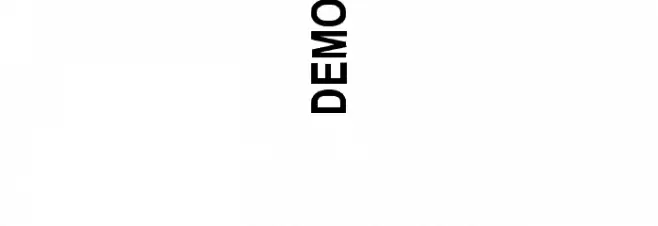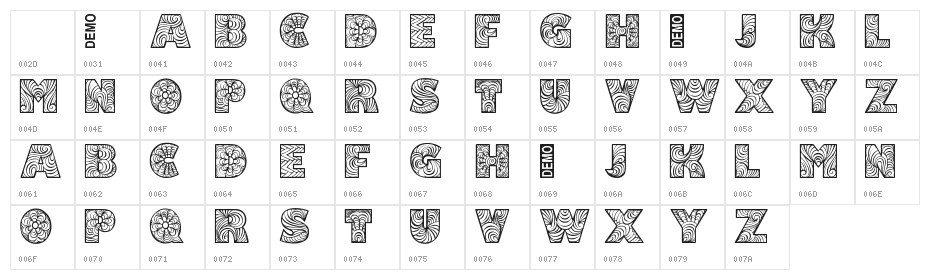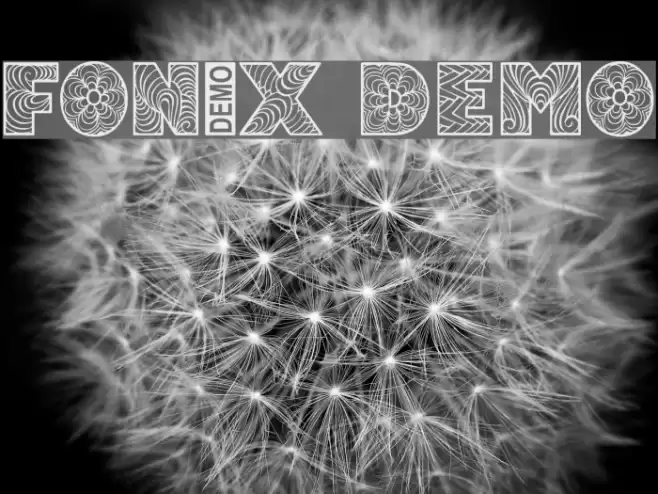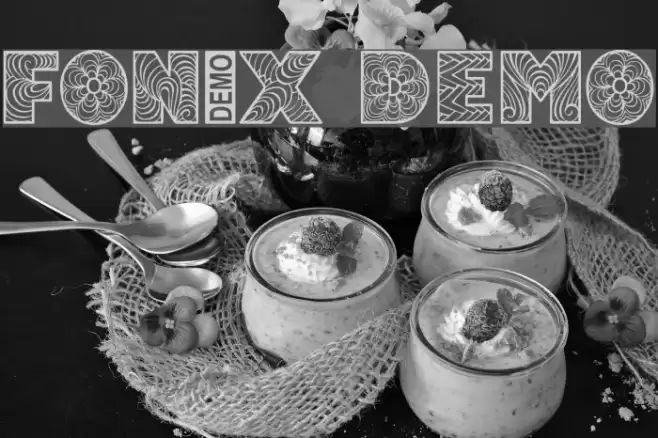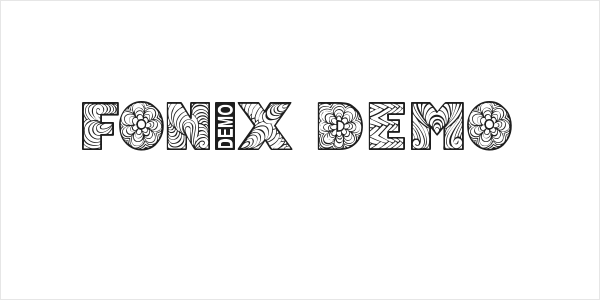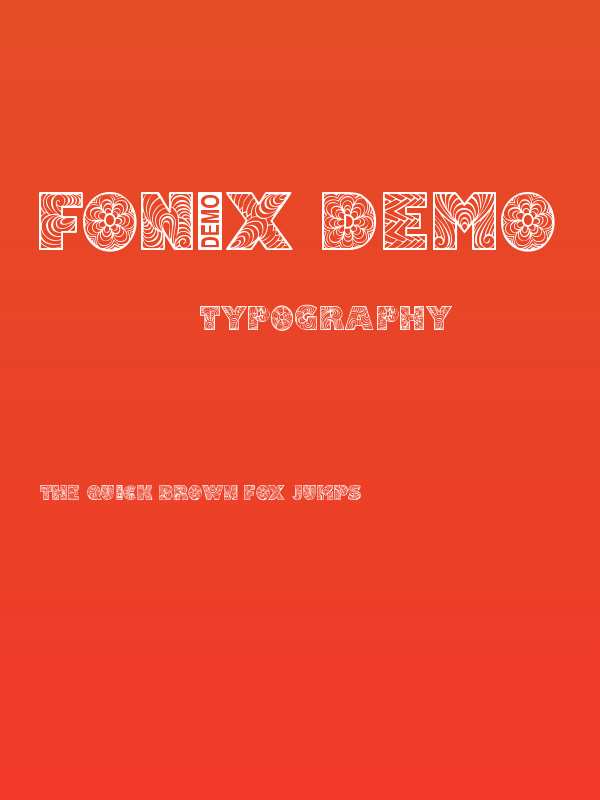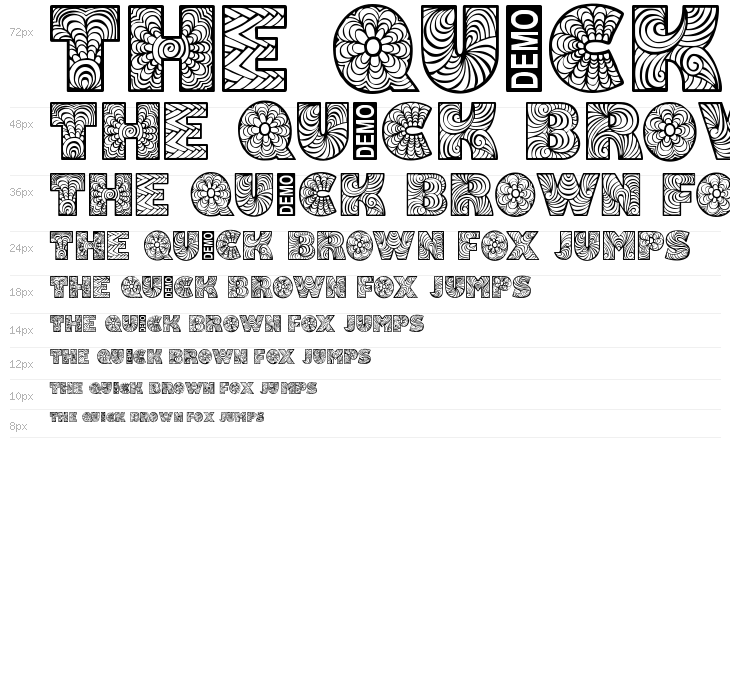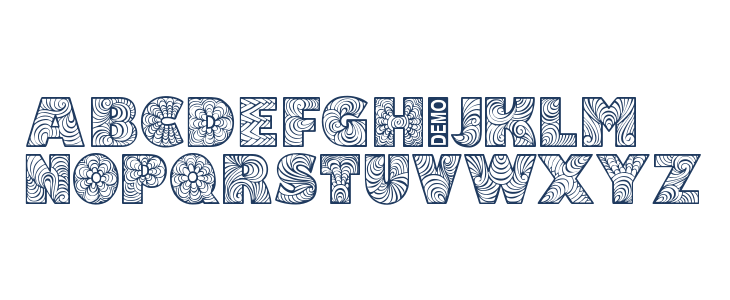
Fonix Demo Font
Fonix Demo Description
This font is a decorative and intricate design featuring bold, uppercase letters filled with detailed patterns and textures. Each character is uniquely adorned with swirling lines and floral motifs, creating a visually captivating effect. The style is reminiscent of hand-drawn art, offering a playful and artistic vibe. The letters are evenly spaced, maintaining a consistent and balanced appearance. This font is ideal for projects that require a standout, artistic touch, such as posters, invitations, or creative branding. Its elaborate design makes it unsuitable for body text but perfect for headlines or logos where visual impact is essential.
Proposed ProjectsIdeal for posters, invitations, creative branding, and artistic headlines.